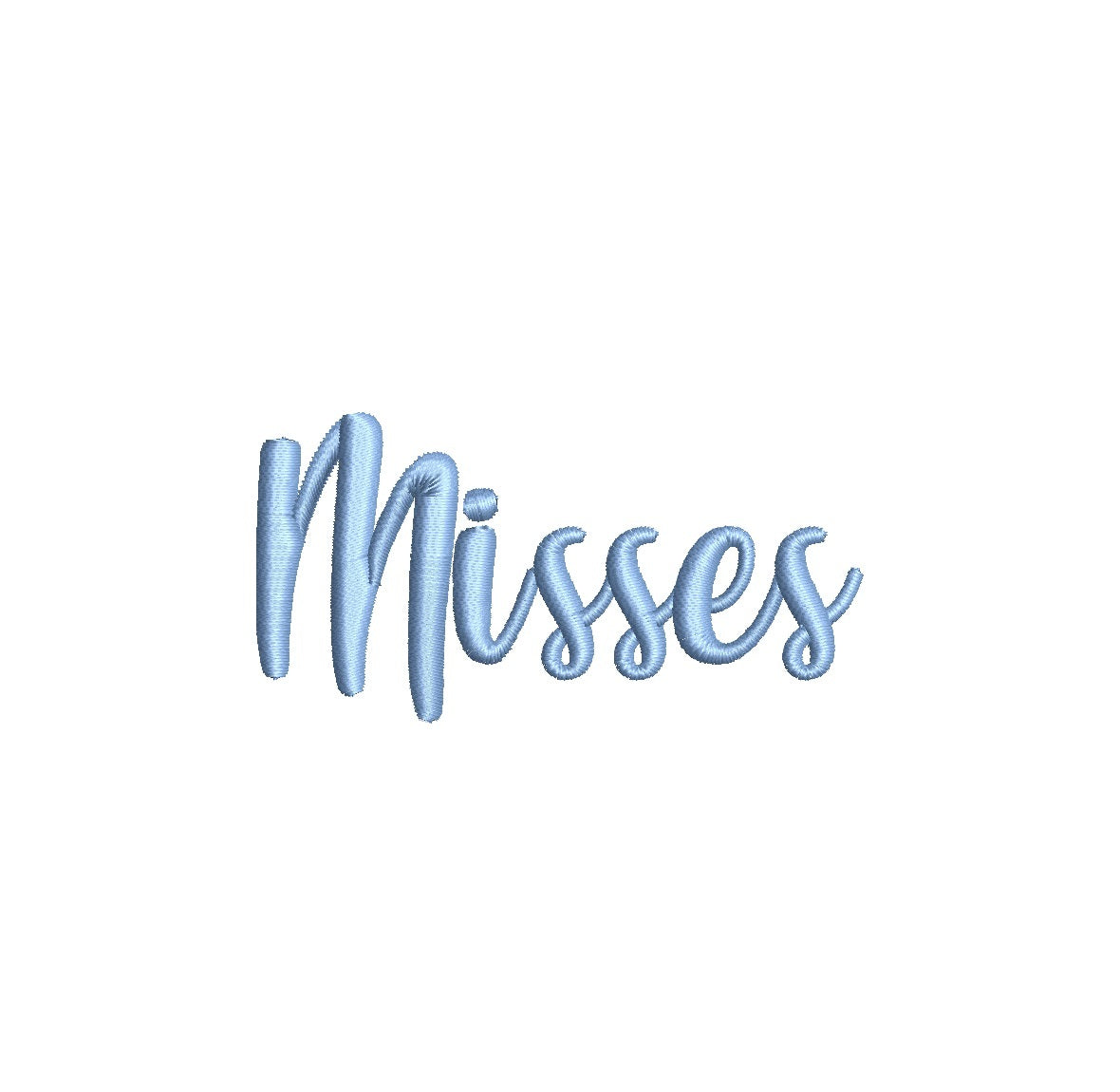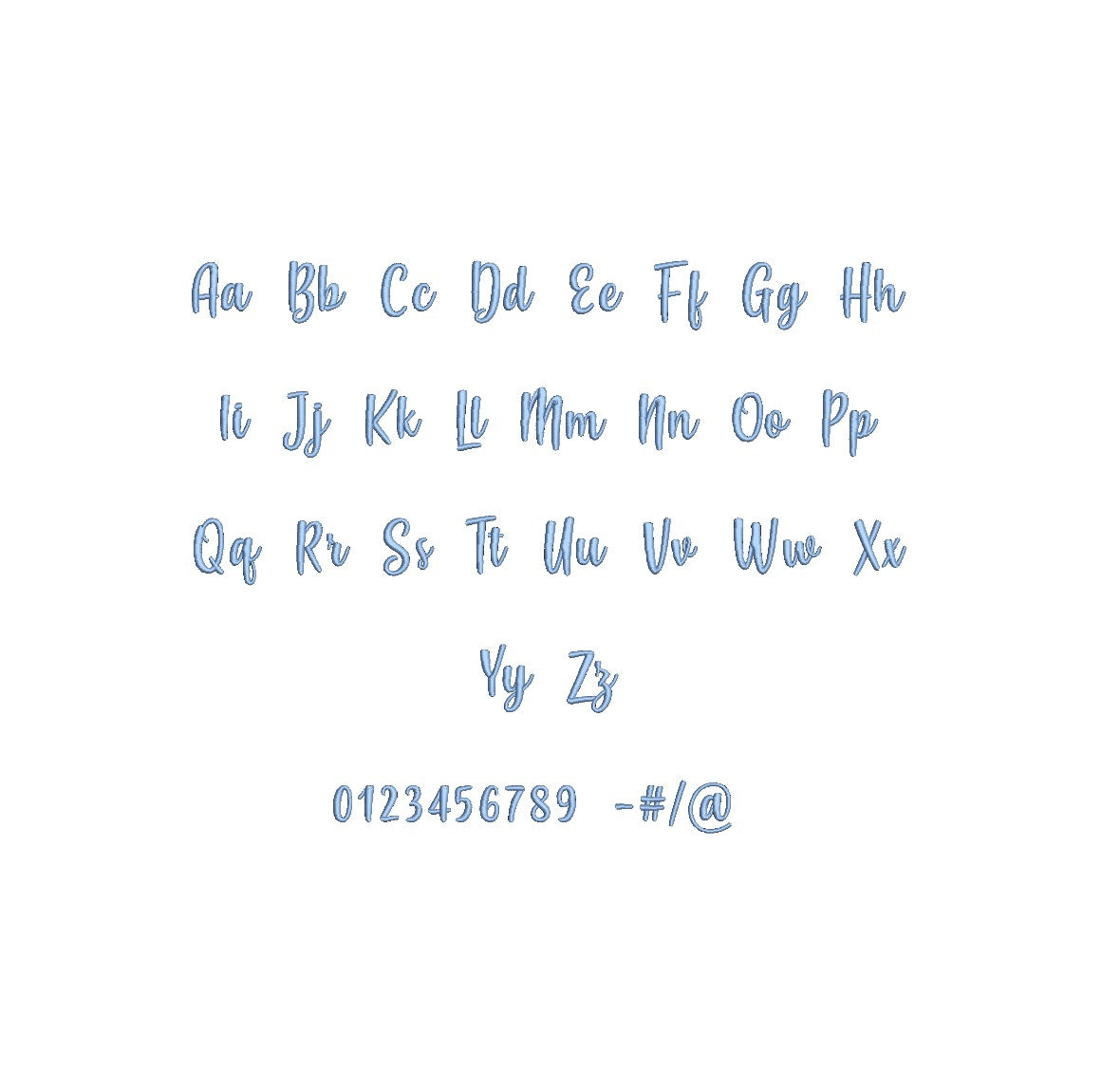
Introducing Misses Regular ESA Font, your ultimate embroidery design companion! Tailored for compatibility with Wilcom Studio e4.5.6 and Hatch 3 versions and beyond, this font seamlessly integrates into your creative process. Elevate your embroidery projects with Misses, boasting precision, elegance, and unrivaled versatility. Perfect for logos, monograms, and text elements, it caters to both professionals and passionate hobbyists. Unlock a world of creative possibilities with Misses Regular ESA Font. Don't miss the chance to enhance your designs effortlessly – acquire it today and experience the pinnacle of embroidery excellence. Your creativity knows no bounds with Misses by your side!